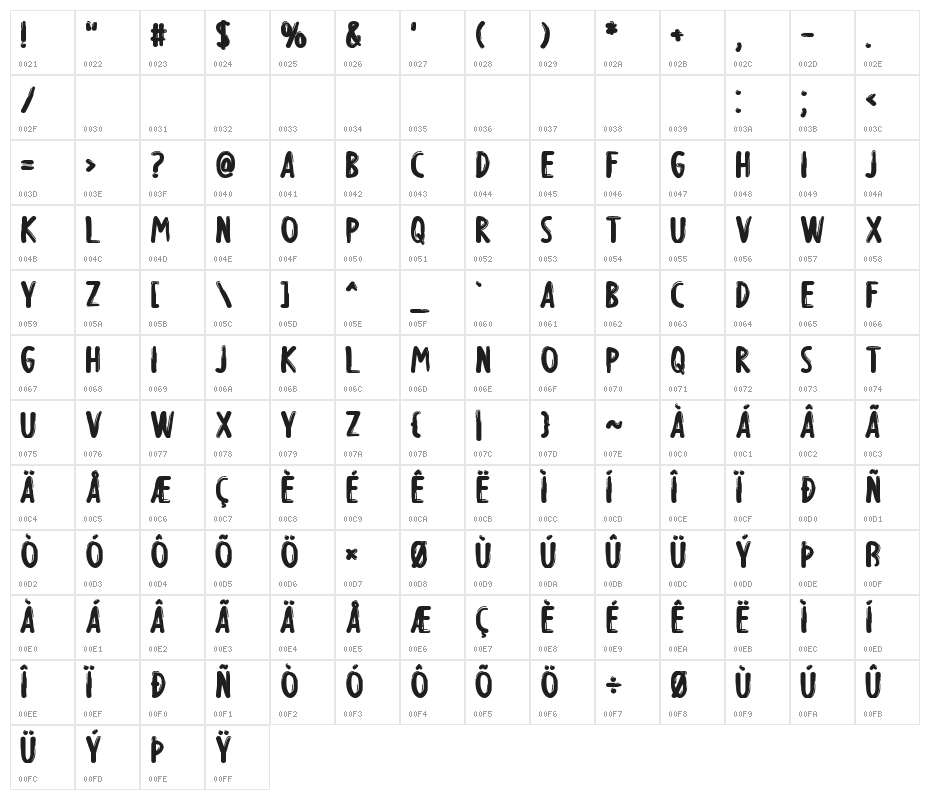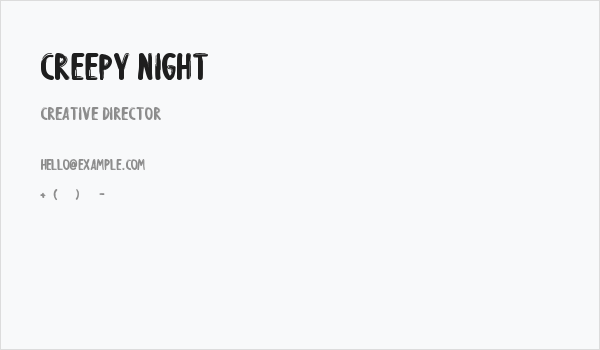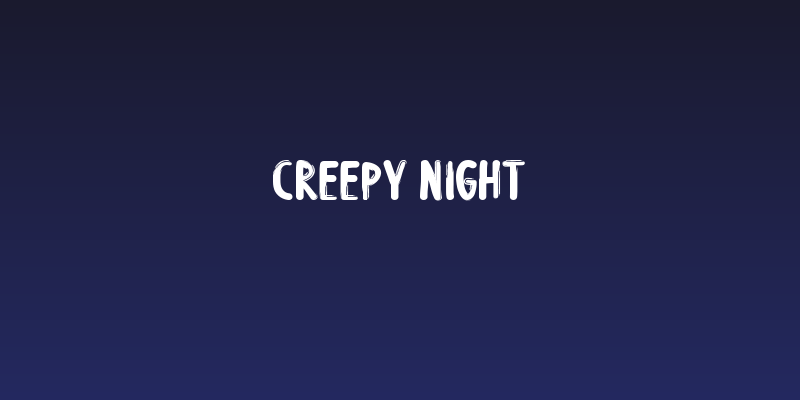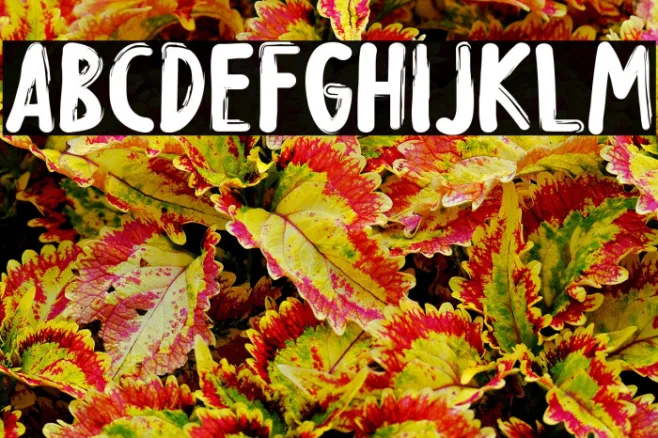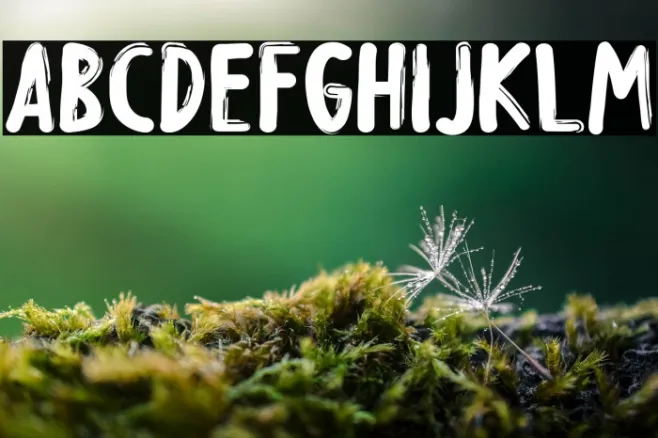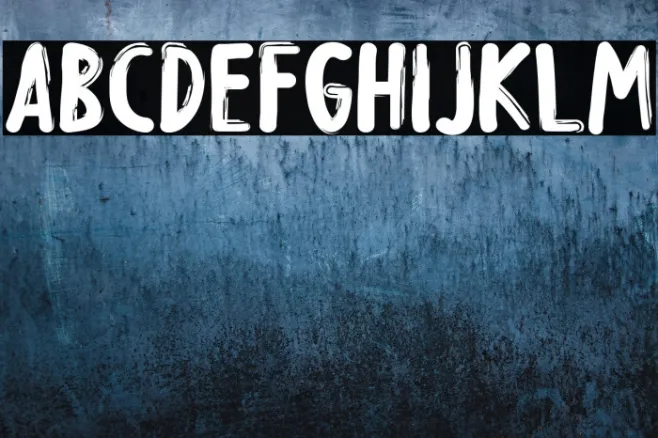
Creepy Night Font
Creepy Night Description
This font features a bold and expressive style with a slightly distressed appearance, giving it a hand-painted look. The characters are thick and rounded, with uneven edges that add to its unique, spooky charm. The uppercase and lowercase letters maintain a consistent style, while the numbers and special characters complement the overall aesthetic. This font is perfect for creating a sense of mystery or eeriness, making it ideal for Halloween-themed projects or any design that requires a touch of the macabre.
| Use Case | Headlines, Posters, Themed Events |
| Proposed Projects | Ideal for Halloween invitations, horror movie posters, themed party decorations, and eerie book covers. |